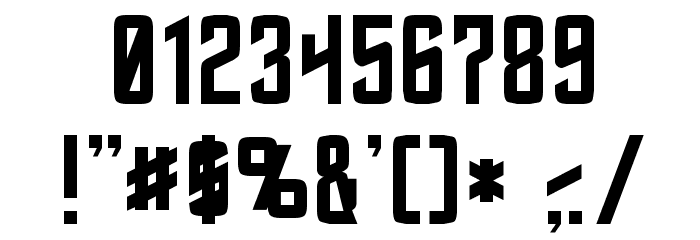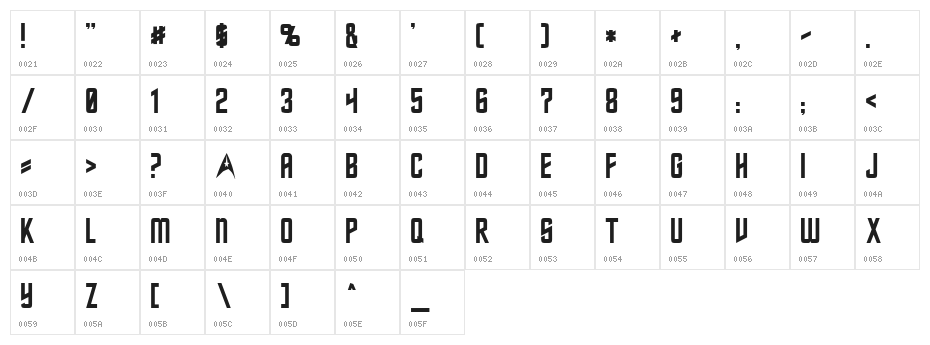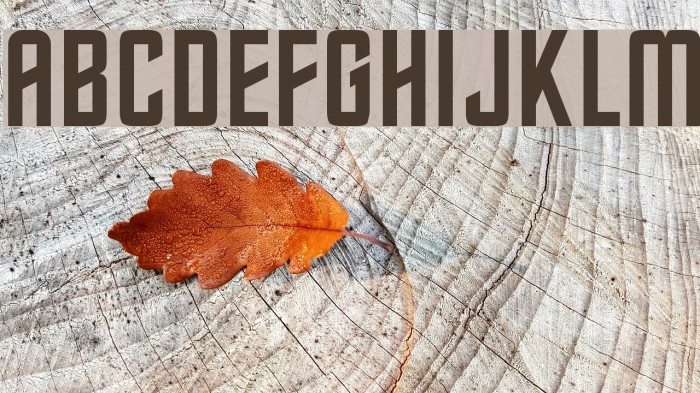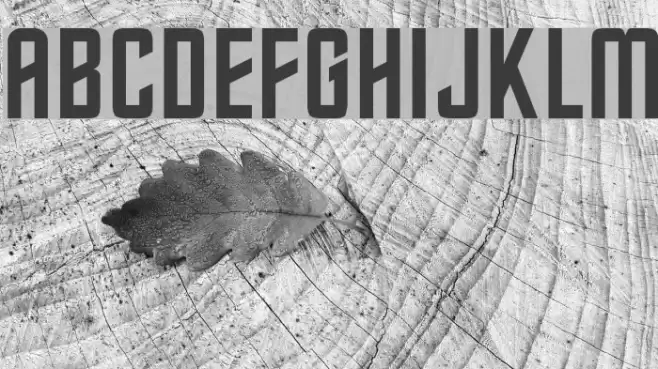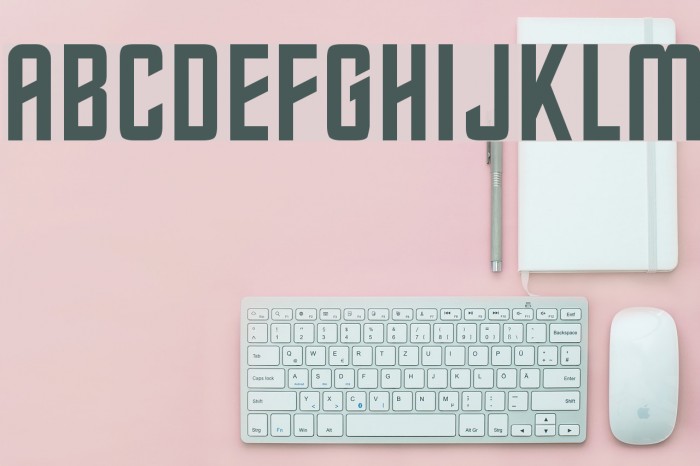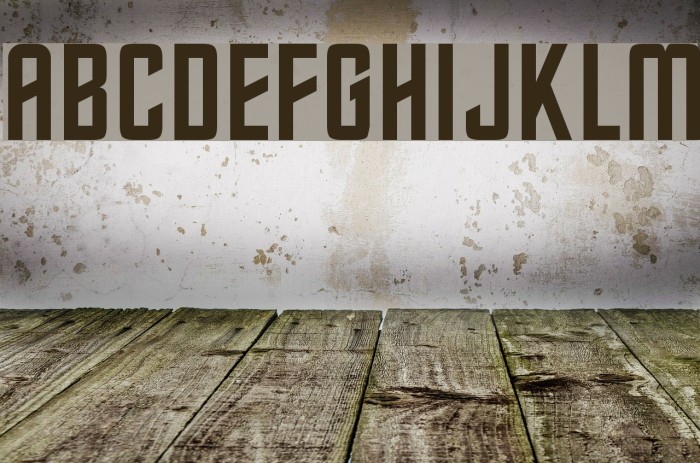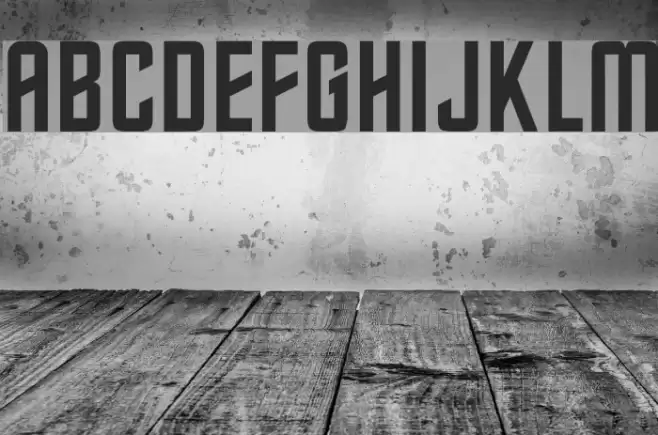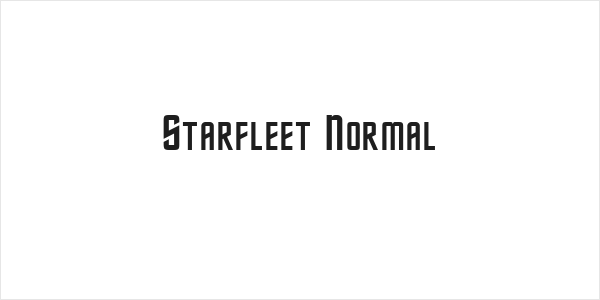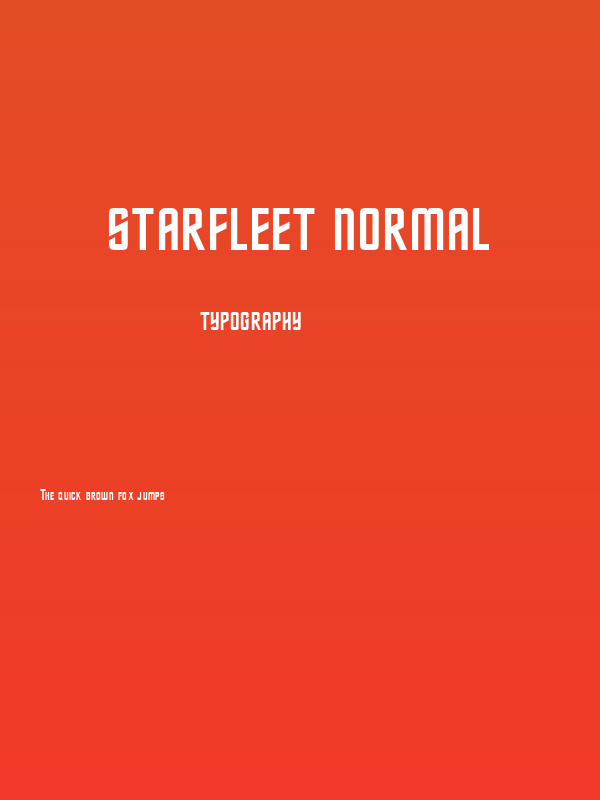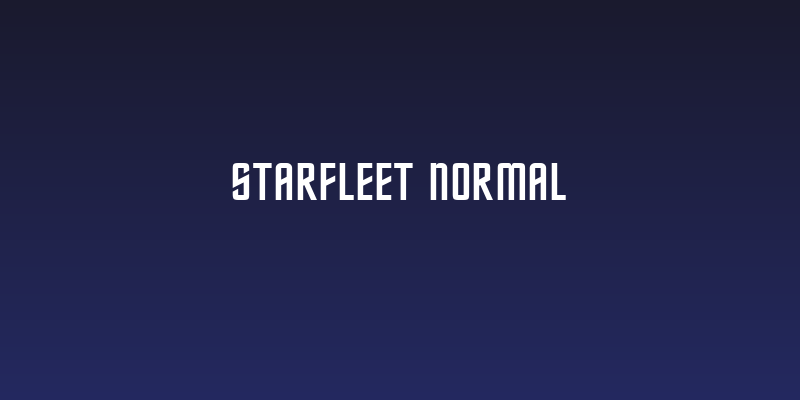
Starfleet Normal Font
Starfleet Normal Description
This font features a futuristic and geometric design, characterized by its bold and angular letterforms. The uppercase letters are tall and narrow, with consistent stroke widths that give it a uniform appearance. The lowercase letters maintain the same angular style, creating a cohesive look across all characters. The numerals are distinct and easily readable, matching the overall aesthetic of the font. Special characters are well-integrated, maintaining the geometric theme. This font is ideal for projects that require a modern and tech-inspired feel.
| Proposed Projects | Ideal for sci-fi themed designs, technology branding, video game interfaces, and futuristic posters. |